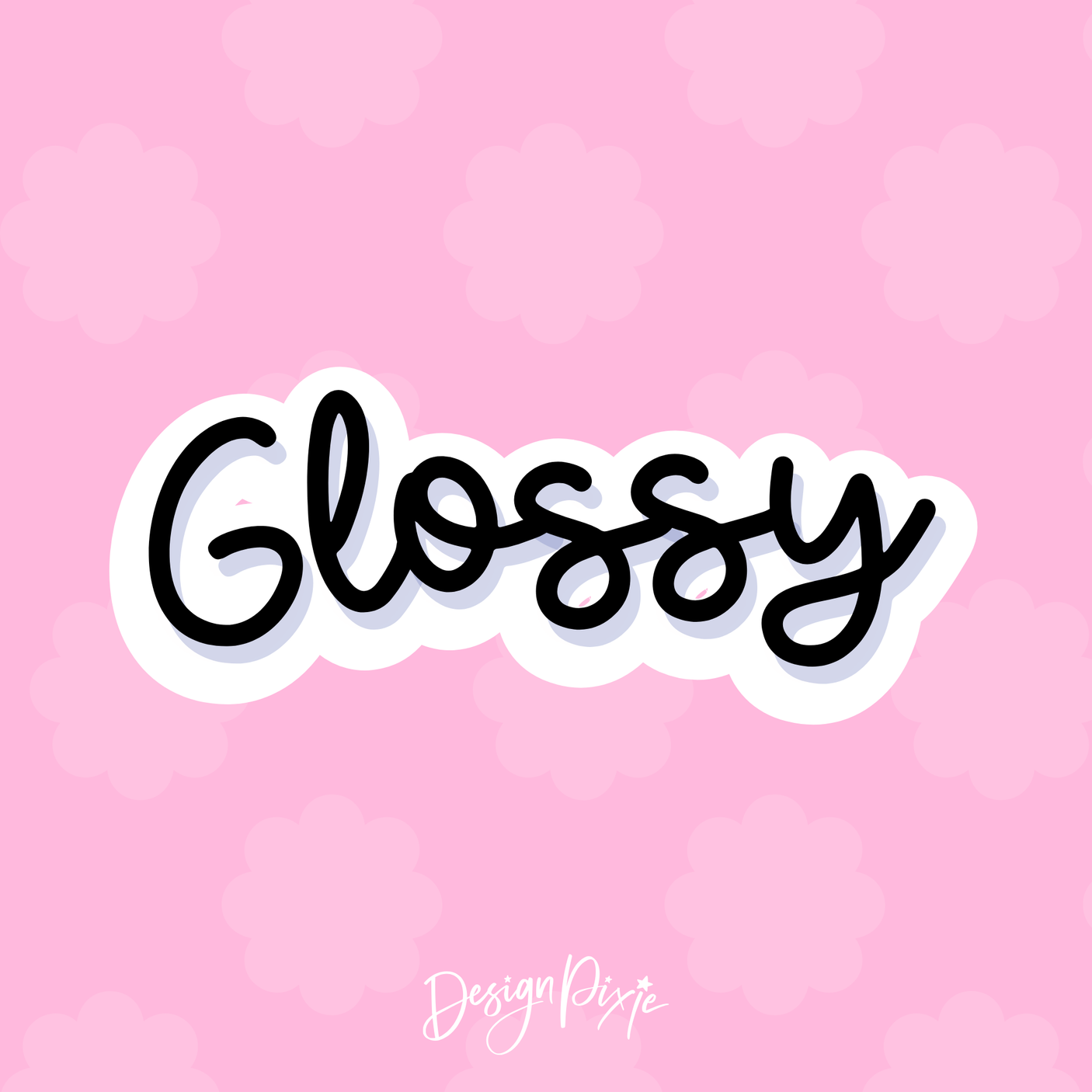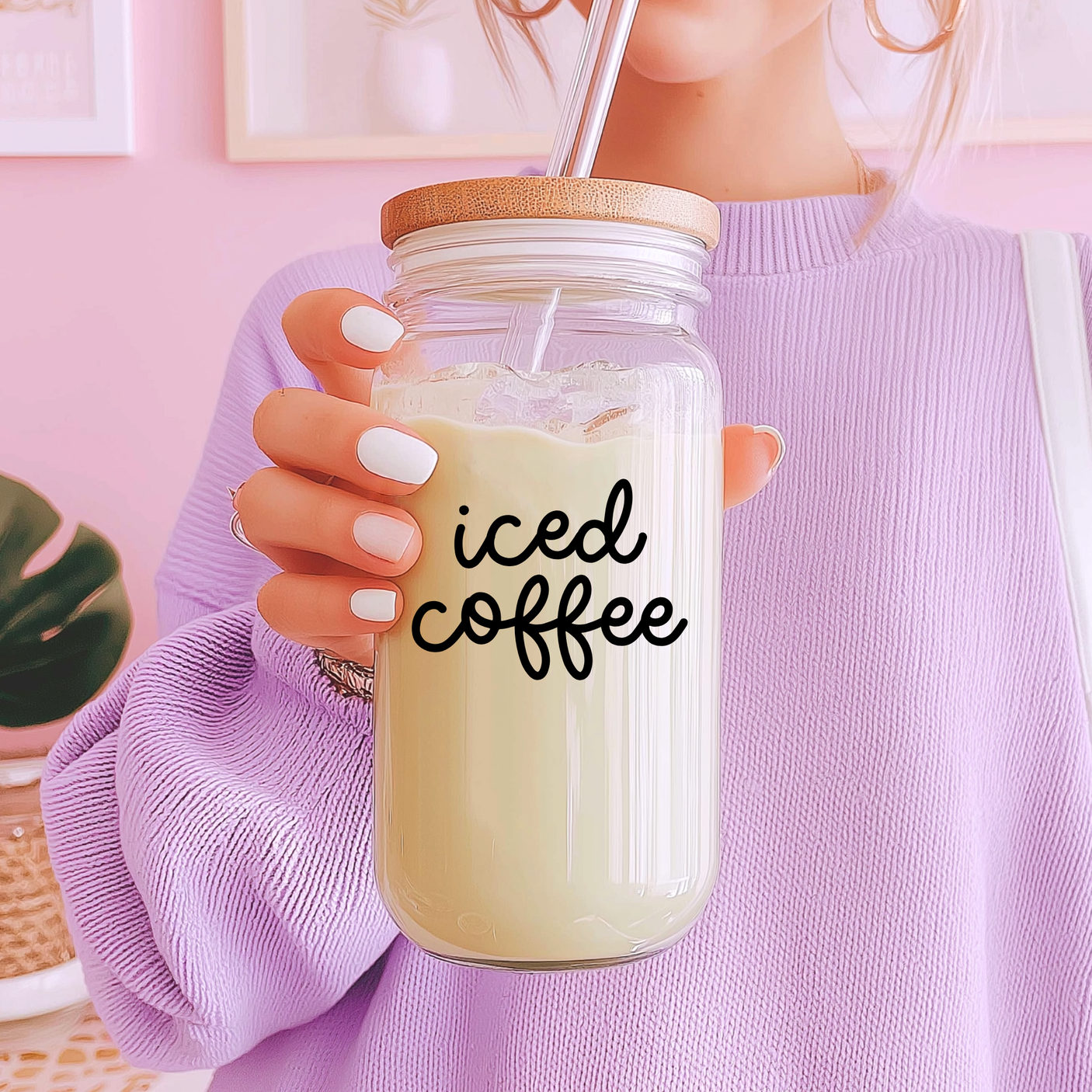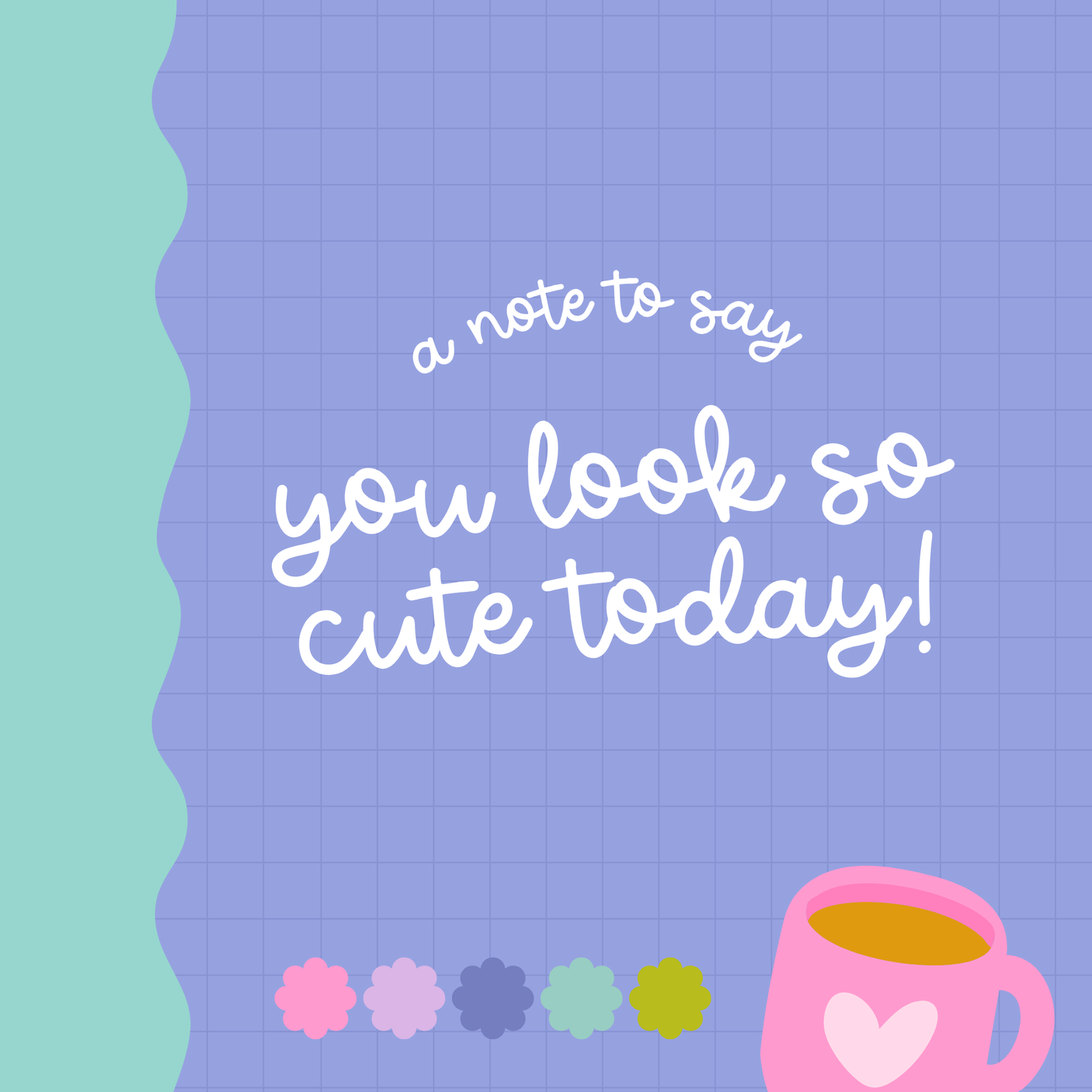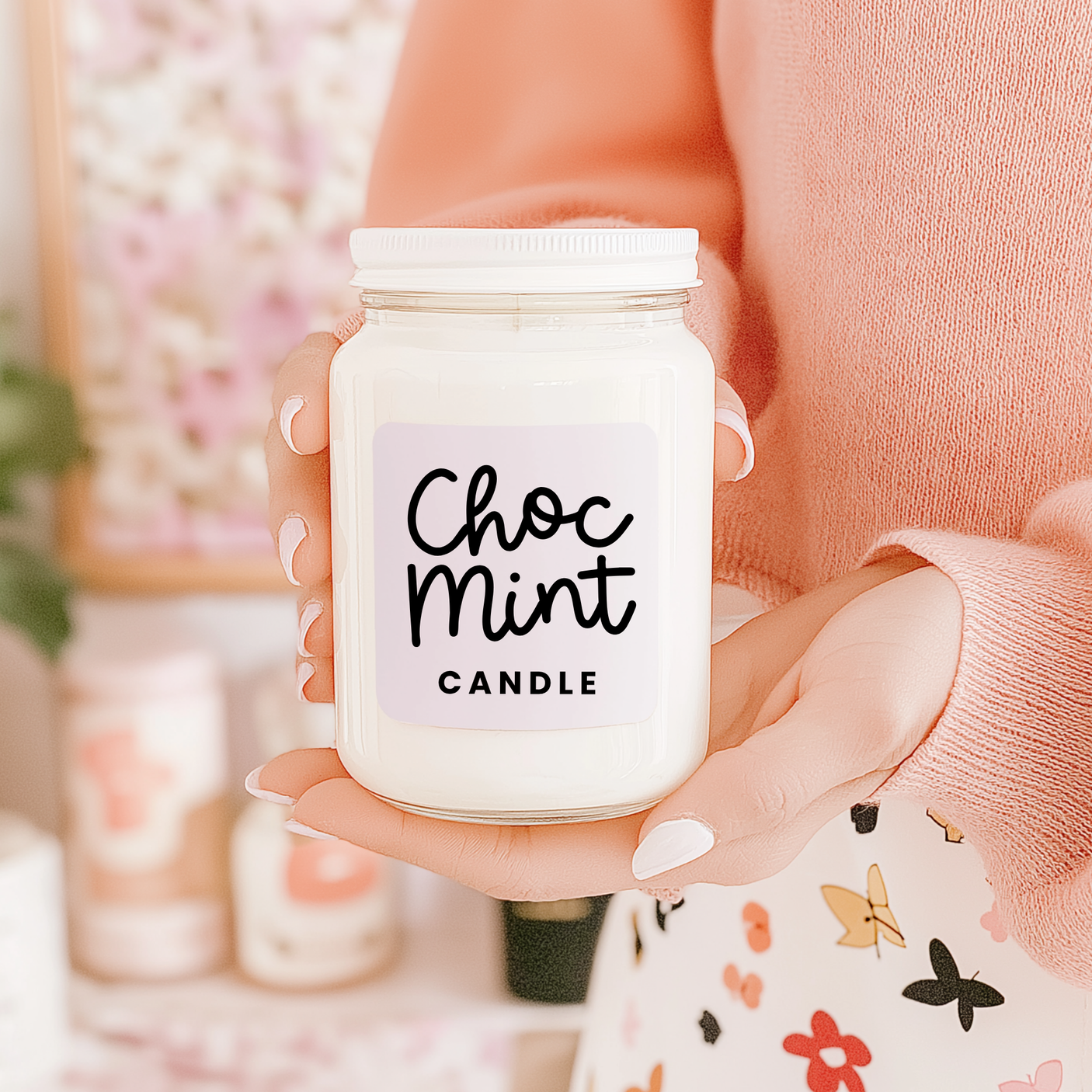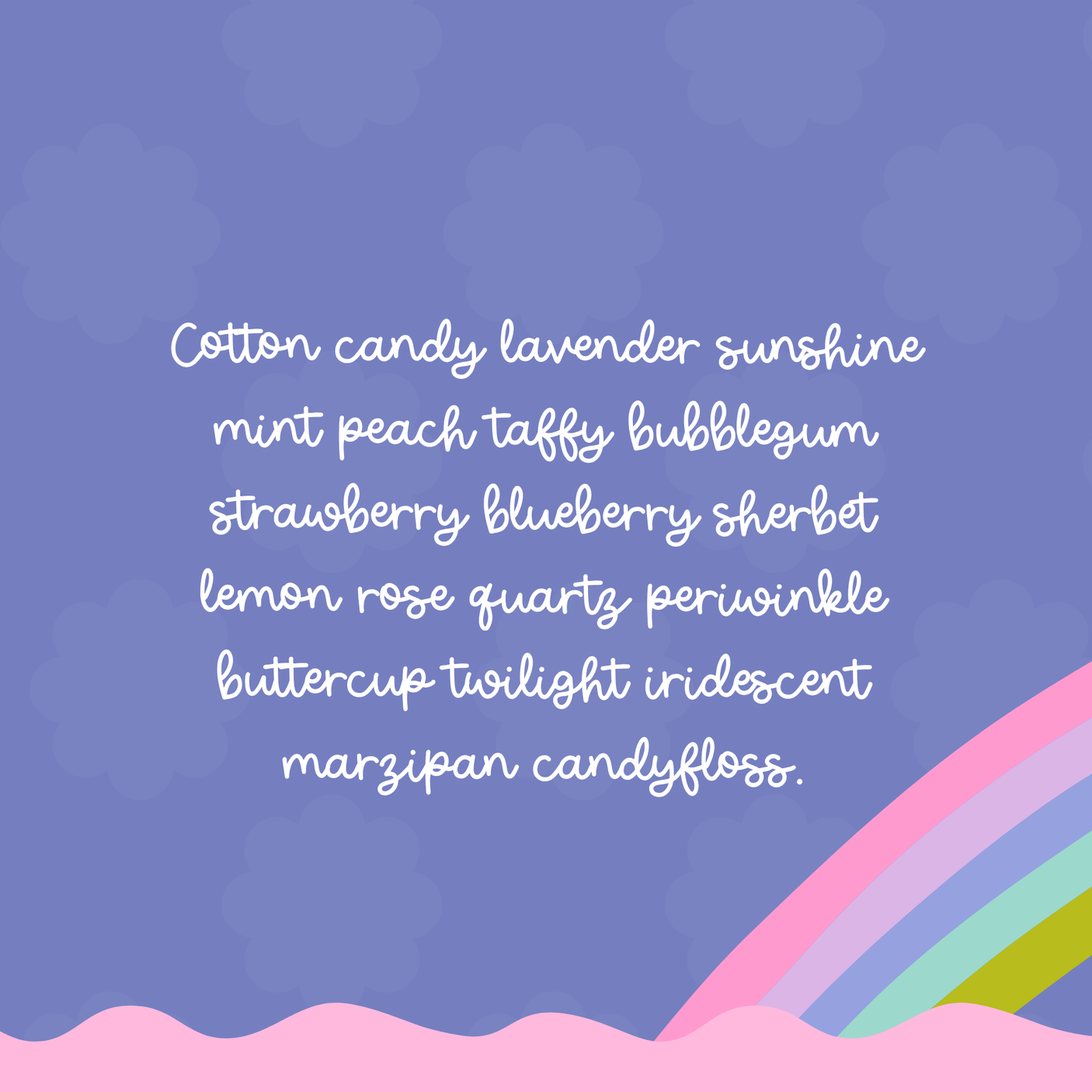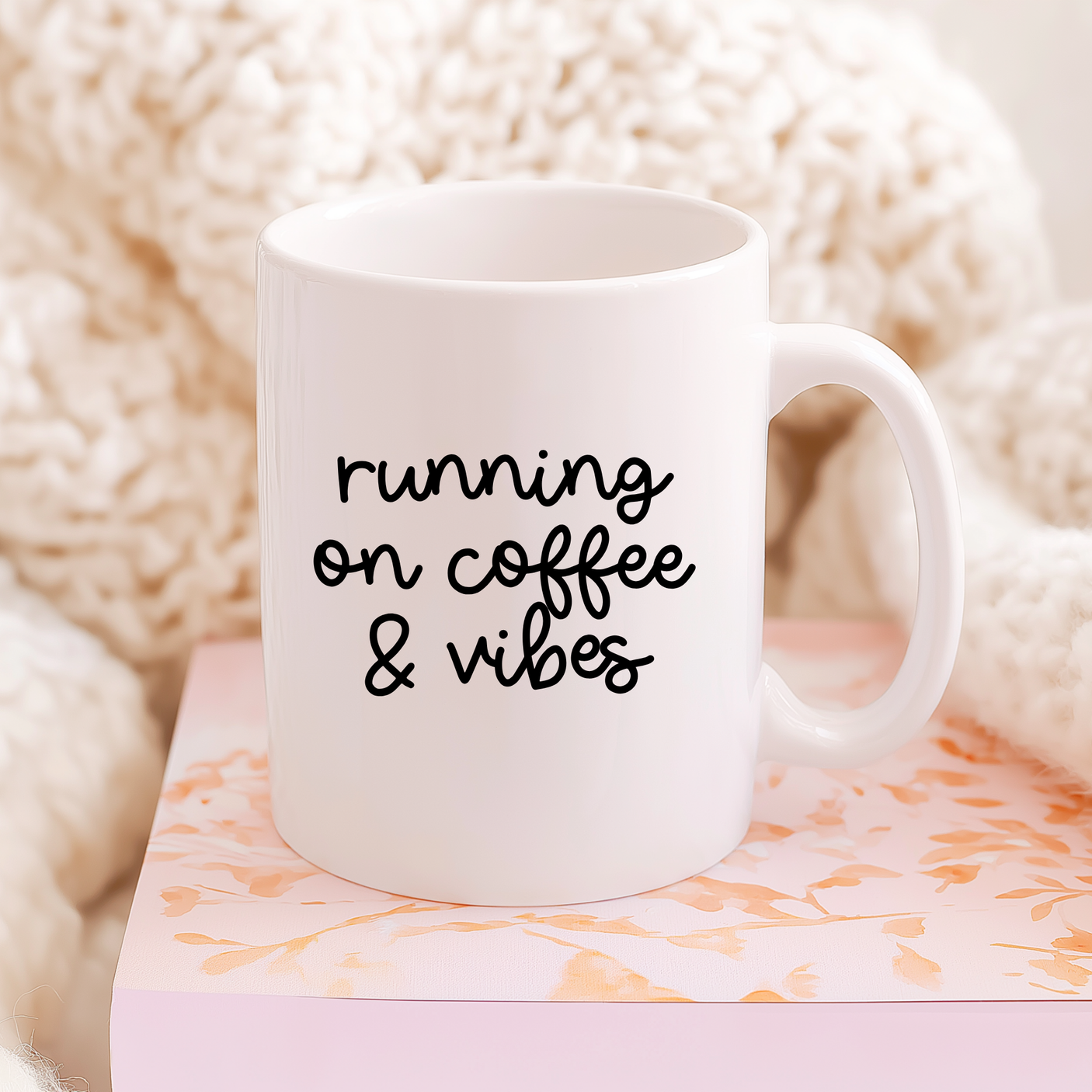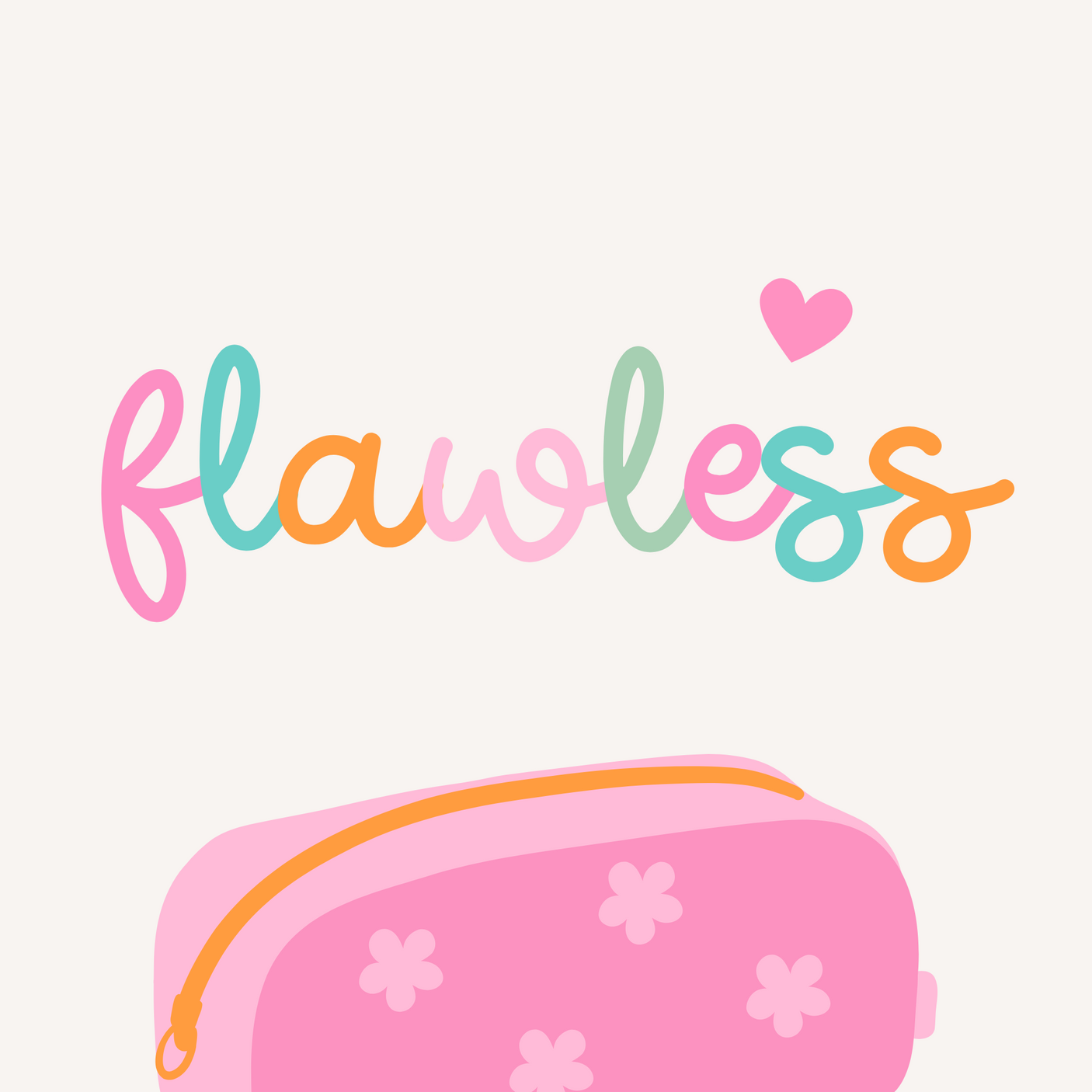
Glossy Font
Meet Glossy, your go-to font for designs that need a touch of playful elegance. With its smooth, handwritten style and bouncy, whimsical flow, Glossy is as sweet as cotton candy and perfect for any project that craves a dreamy, fun vibe.
From logos to Instagram posts or even DIY party invites, Glossy brings a cheerful personality that brightens up your designs. Its versatile, polished look makes it ideal for everything from girly aesthetics to stylish branding projects.
Why You’ll Love Glossy:
- A smooth, handwritten style that feels soft and playful.
- Perfect for creating designs with a light, happy vibe.
- Great for branding, social media, teacher materials, and more.